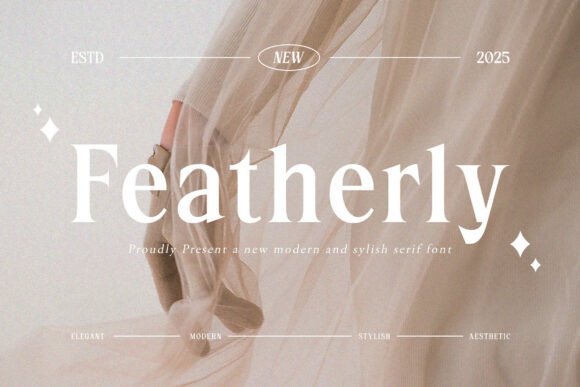
Introducing Featherly Font: The Epitome of Modern Serif Elegance
In the realm of typography, few fonts manage to strike a balance between classic sophistication and modern charm. Featherly Font is one such exceptional typeface that embodies the perfect blend of grace, elegance, and contemporary design. Inspired by the delicate lightness of feathers and the high-end appeal of fashion, Featherly brings a touch of timeless beauty to your visual projects.
The Inspiration Behind Featherly
Featherly’s design is rooted in the dual inspirations of natural lightness and high fashion elegance. The font’s creator sought to capture the soft, airy quality of feathers, translating this lightness into a serif font that maintains readability while adding a decorative touch. At the same time, Featherly draws from the world of high fashion, where elegance and sophistication are paramount. This blend of inspirations results in a font that is both refined and strikingly beautiful.
Key Features of Featherly Font
- Refined Modern Serif Design: Featherly boasts a modern serif design that is both current and timeless. Its serifs add a touch of classic elegance, while its clean lines keep it firmly rooted in contemporary design.
- Elegant and Sophisticated: Every curve and line in Featherly has been carefully crafted to exude elegance and sophistication. This makes it an ideal choice for projects where a high-end look is desired.
- Versatile: Featherly is incredibly versatile, making it suitable for a wide range of applications, from branding and editorials to social media graphics, packaging, and wedding designs.
- Perfect Balance: One of Featherly’s standout qualities is its ability to balance classic and contemporary aesthetics seamlessly. This balance ensures that your designs are both current and enduring.
Use Cases for Featherly Font
Featherly’s versatility is one of its most compelling features. Here are some of the ideal use cases for this beautiful font:
- Branding: Elevate your brand’s typography with Featherly’s elegant and sophisticated design. It’s perfect for creating a lasting impression on your audience.
- Editorials: Add a touch of high-end fashion to your editorial designs with Featherly. Its refined serifs and modern aesthetic make it a standout choice for magazines, blogs, and more.
- Social Media: Make your social media graphics stand out with Featherly’s unique and captivating design. It’s an excellent way to maintain consistency across your brand’s online presence.
- Packaging: For product packaging that stands out on store shelves, Featherly offers a sophisticated and eye-catching solution.
- Wedding Designs: Bring a touch of elegance to wedding invitations, programs, and other stationery with Featherly. Its beautiful design is sure to make your wedding materials memorable.
Why Choose Featherly Font?
With so many fonts available, why choose Featherly for your projects? The answer lies in its unique blend of elegance, modernity, and versatility. Here are a few reasons why Featherly stands out:
- Unique Aesthetic: Featherly offers a distinctive look that sets it apart from more common fonts. Its blend of classic and modern elements ensures your designs will be memorable.
- High Readability: Despite its decorative serifs, Featherly maintains high readability, making it suitable for both headings and body text.
- Easy to Pair: Featherly pairs well with a variety of other fonts, giving you flexibility in your design choices.
Featherly Font is a remarkable addition to any designer’s toolkit. Its refined modern serif design, inspired by the lightness of feathers and the elegance of high fashion, brings a touch of timeless charm to your visual projects. Whether you’re working on branding, editorials, social media graphics, packaging, or wedding designs, Featherly offers the perfect balance between classic and contemporary aesthetics. Elevate your typography and make a lasting impression with Featherly — where elegance meets modern design.